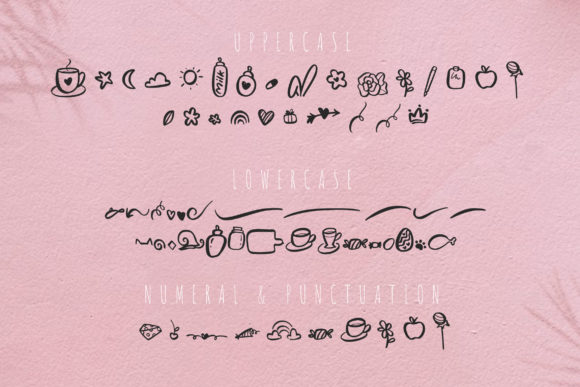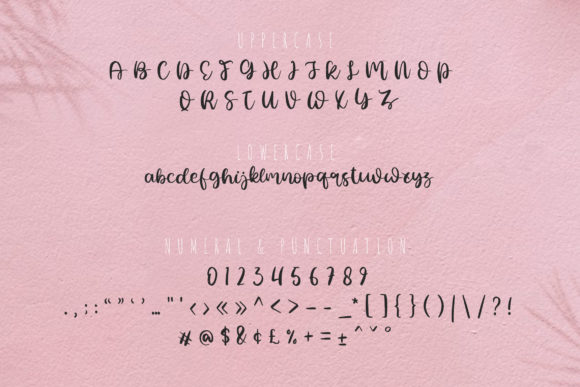
Mochi Font
db-ku.com - Script & Handwritten -- Mochi is a cute and flowing duo font (dingbats and script). Sweet and playful, this typeface can elevate the look of any creation ranging from product packaging to business cards, and more!